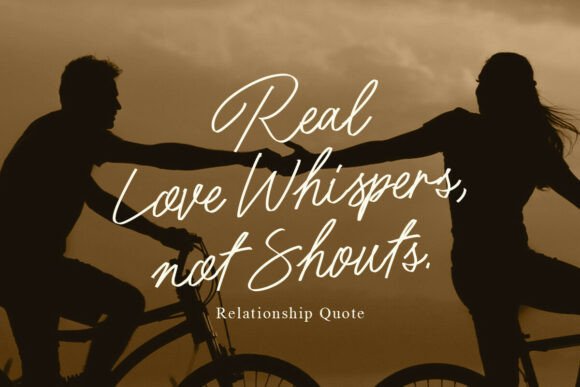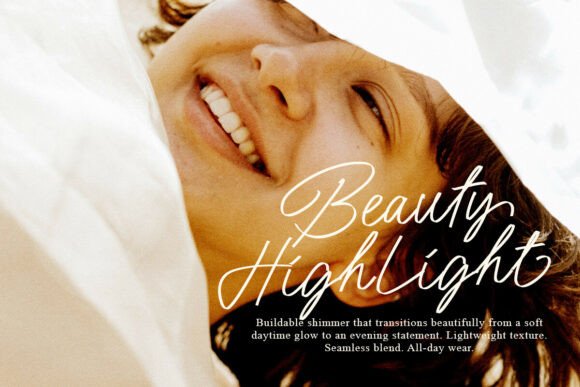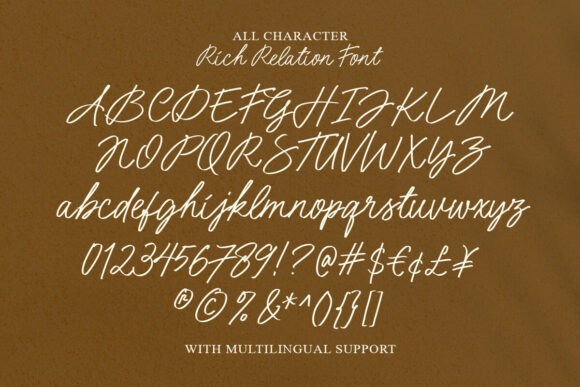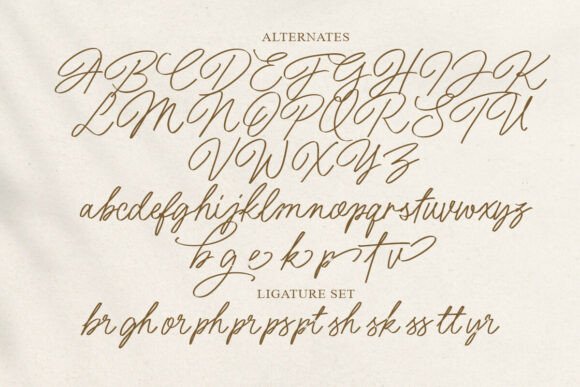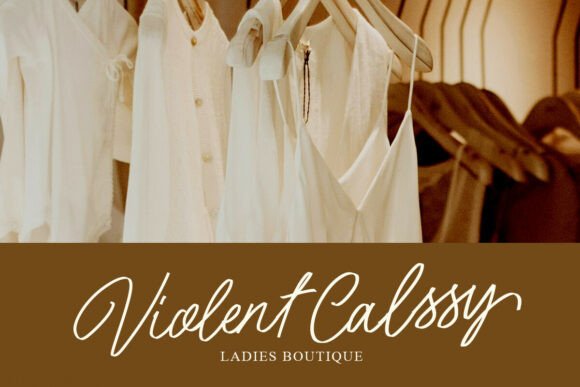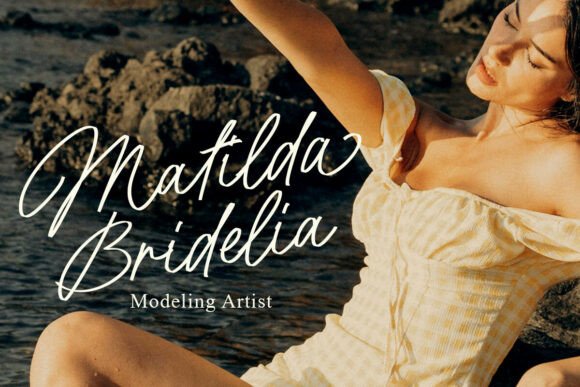
Introduction to Rich Relation Font
Have you ever received a handwritten note from a loved one, and the simple act of holding it in your hands fills you with warmth and nostalgia? That’s exactly the feeling you want to evoke with your design projects, and that’s where the Rich Relation Font comes in. This beautiful, high-quality script font is designed to make your creative projects feel more personal and sincere.
As a designer, you know how crucial it is to have the right design resource at your fingertips. Rich Relation Font is perfect for wedding invitations, branding, greeting cards, and product packaging, offering a touch of sophistication and elegance that’s hard to find elsewhere. With its smooth, flowing curves and natural pen strokes, this font is sure to bring a sense of intimacy and style to your design.
And the best part? Rich Relation Font is PUA encoded, making it easy to access all glyphs, swashes, and alternate characters. Whether you’re working on a free download project or a commercial design, this font is a valuable addition to your design arsenal. So why settle for a generic font when you can make a statement with Rich Relation Font?
- Unique characteristics: Rich Relation Font boasts a distinctive and creative design that sets it apart from other fonts, adding a touch of elegance and sophistication to your project.
Honest Review: Rich Relation Font
- ✨ High quality design: The font looks professional and well-crafted, making it a great addition to any project.
- ⚠️ Limited character set: The font only includes a limited set of characters, which may not be suitable for all projects.
- ⚠️ Not ideal for large text: The font may not be the best choice for large blocks of text, as it can become difficult to read.
Overall, I’m impressed with the Rich Relation Font, and I think it’s a great design resource for any creative project. While it may have some limitations, its high quality and free download make it a great choice for designers on a budget or with specific needs.
Use the Rich Relation Font to add a high-quality touch to your creative project.
Combine the font with a transparent background for a unique design element.
Experiment with different font sizes and colors to achieve the desired effect.
The Rich Relation Font is ideal for:
Headings and titles in creative projects.
Logos and branding elements.